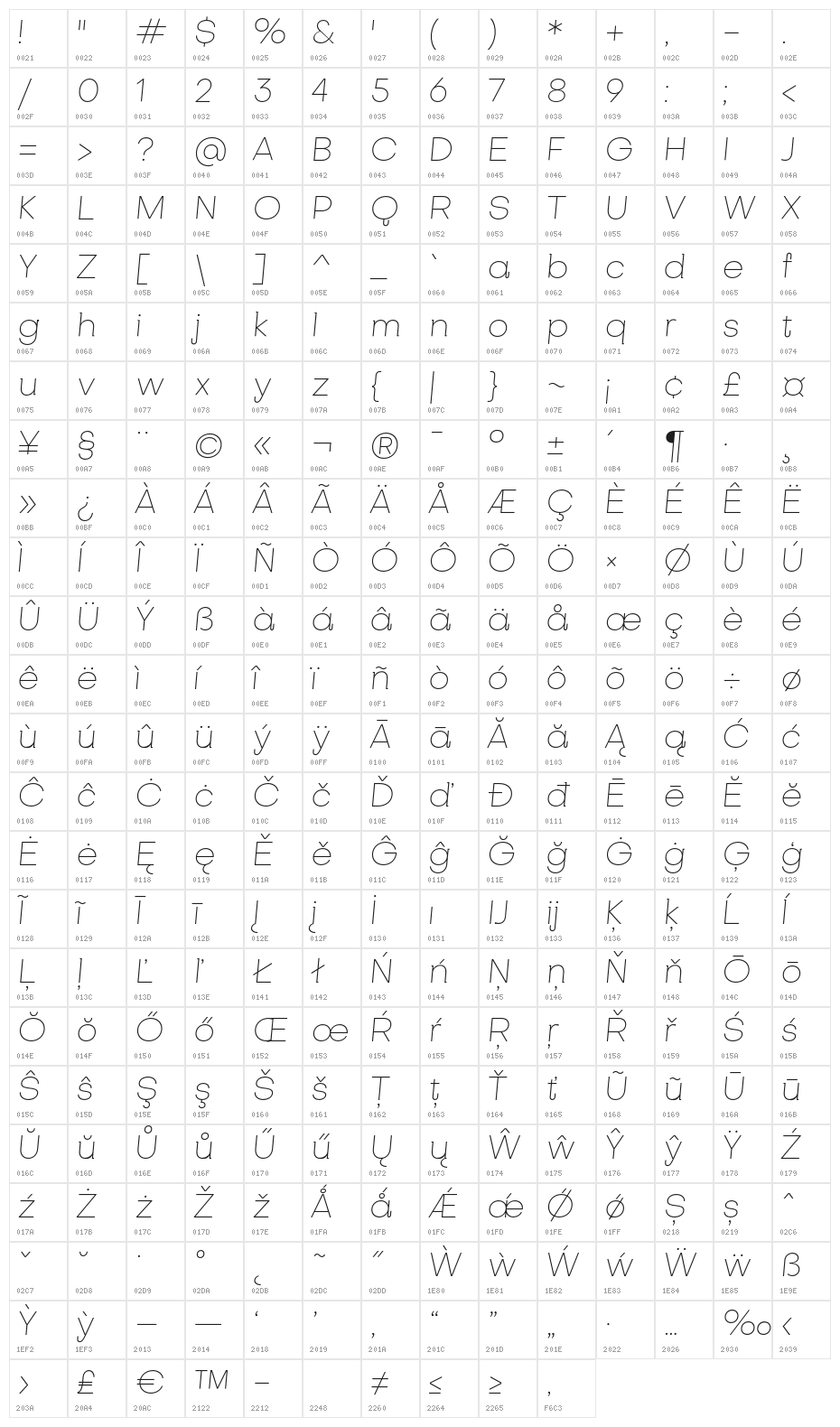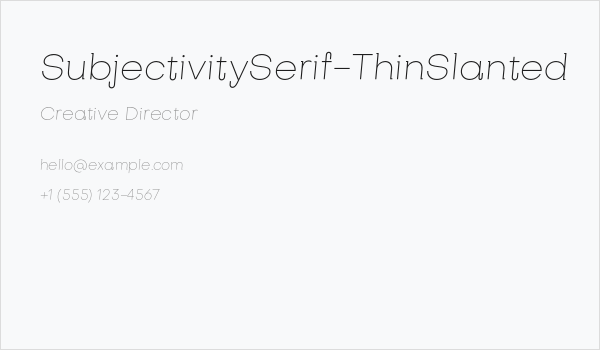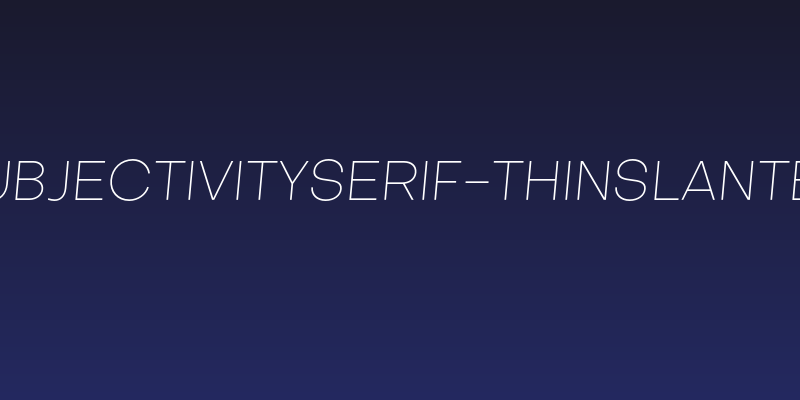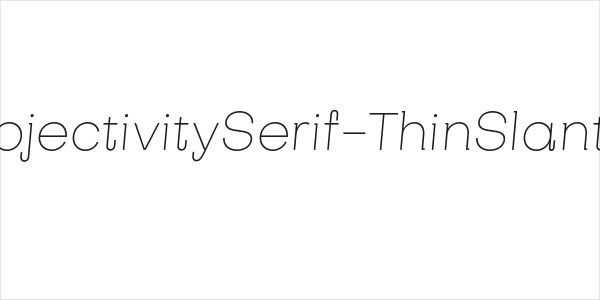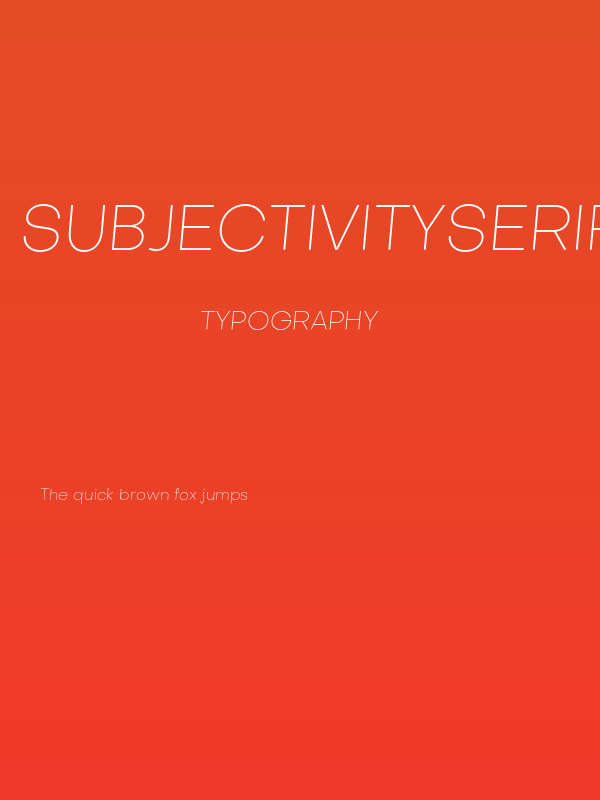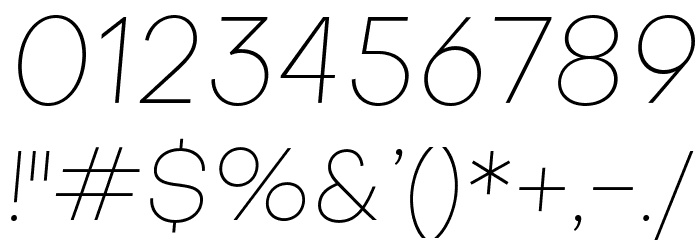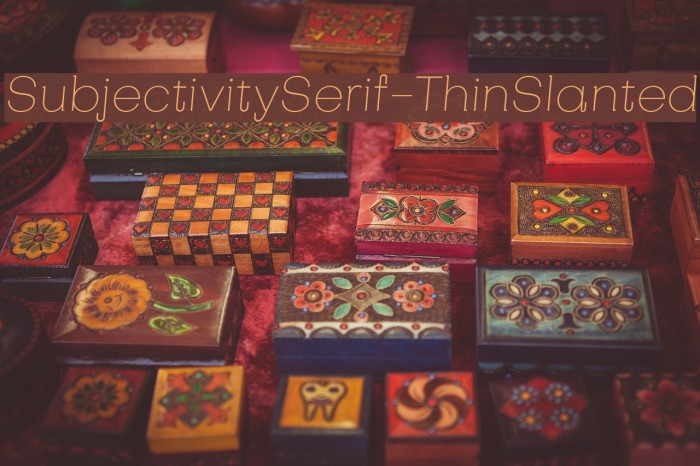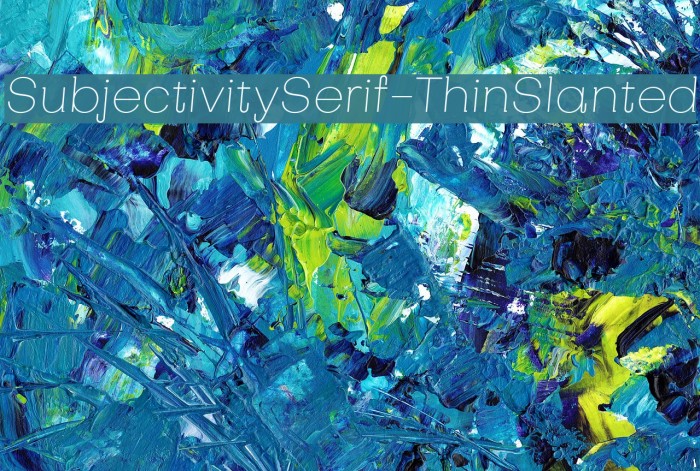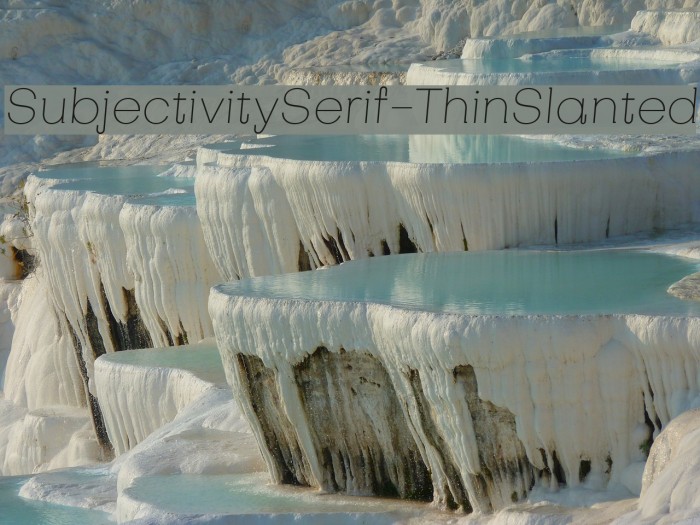
SubjectivitySerif-ThinSlanted Font
SubjectivitySerif-ThinSlanted Description
This font features a sleek and elegant design with a thin, slanted style that adds a touch of sophistication. The letters are delicately crafted with a slight serif, giving it a modern yet classic appeal. The uppercase and lowercase characters maintain a consistent slant, enhancing the font's fluidity and grace. The numerals and special characters are designed with the same thin strokes, ensuring uniformity across all elements. This font's airy and open appearance makes it ideal for projects that require a refined and contemporary look.